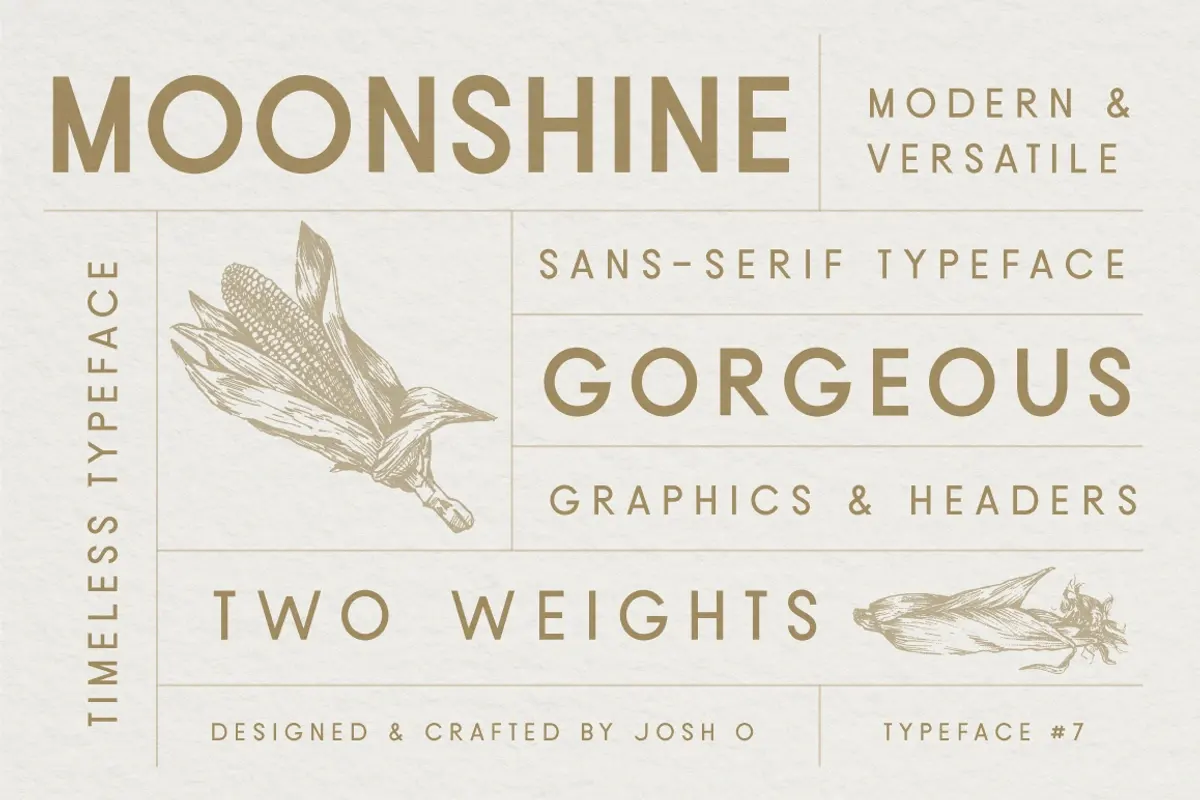
Moonshine Font | Classic Sans Serif Free Download
Moonshine Font | Classic Sans Serif Free Download is a timeless, elegant sans-serif typeface with a clean, minimalist design. With its strong lines and balanced proportions, this font is ideal for a variety of design projects, from branding and logos to websites, editorial layouts, and social media graphics.
The modern yet classic aesthetic of Moonshine ensures it works well in both large headings and smaller body text, making it versatile and highly readable. Whether you're creating a high-end brand identity or working on a contemporary design, this font brings sophistication and clarity to your typography.
Add clean sophistication to your designs with Moonshine Font | Classic Sans Serif Free Download, and create timeless, professional typography that stands out with modern elegance. Perfect for designers seeking a versatile, elegant sans-serif font.